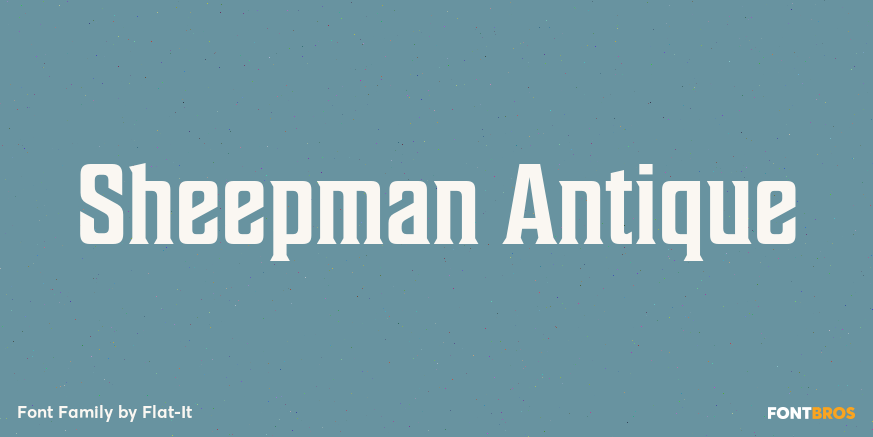
Sheepman Antique
About Sheepman Antique
Sheepman is inspired by and based on retro William Page\’s No.506 typeface which is popular wooden type fonts of the 19th century. To make soft and natural impressions, the original polygonal design was changed to rounded design. All glyphs had been designed…